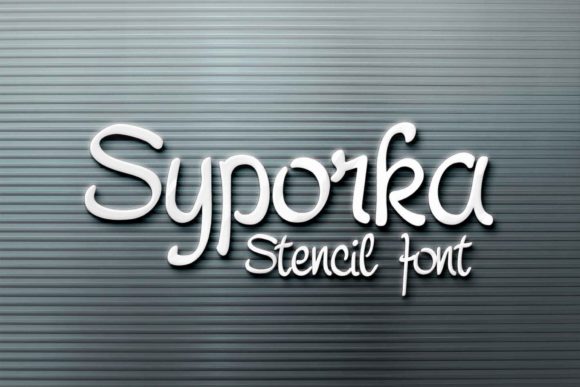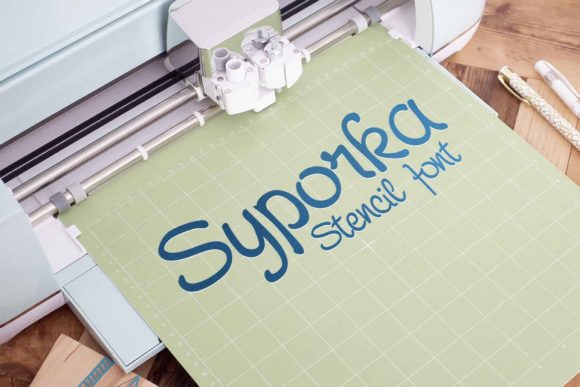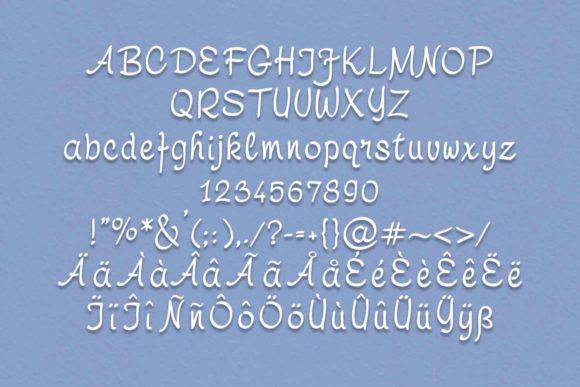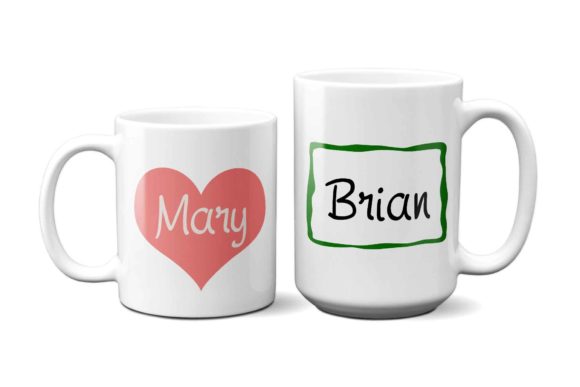
Syporka Font
Syporka Stencil is a carefully crafted stencil font without closed loops on the characters.
Perfect choice for craft, sublimation or print projects.